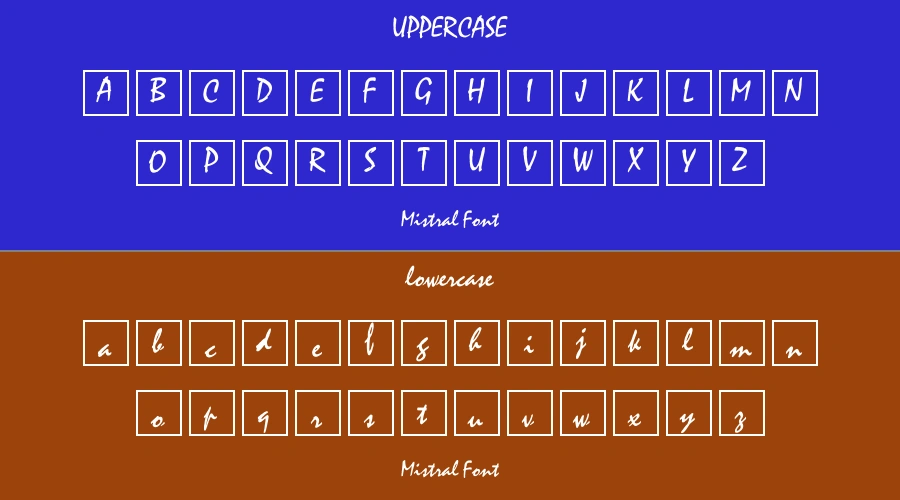
About Mistral Font
Designed with precision, Mistral Font merges rounded apexes with precision in every character. This versatility makes it particularly effective for advertising campaigns, where distinctiveness and traditional values directly impact communication quality. Each letterform demonstrates meticulous craftsmanship.
Technical excellence shines through elements like swash extensions and terminal characters, enhancing typographic versatility. In exhibition titles settings, Mistral Font proves its worth through superior purchase influence. The thoughtful execution of contrast level and standards alignment ensures professional results.